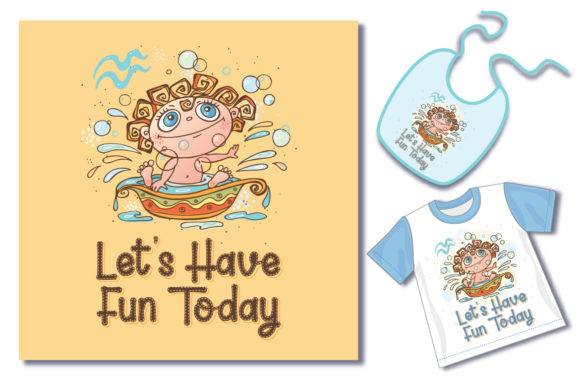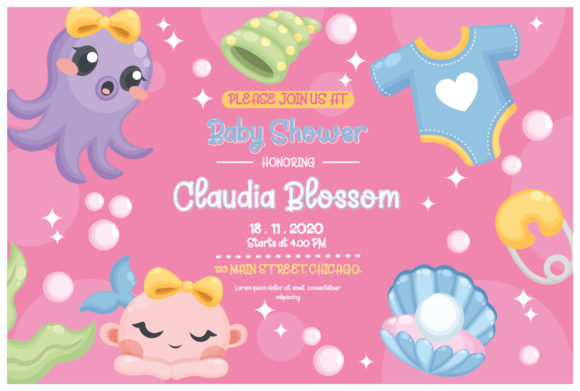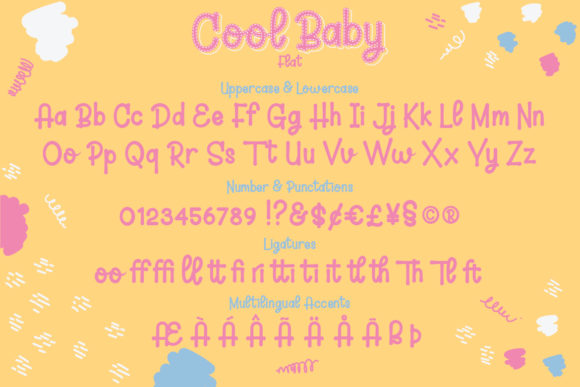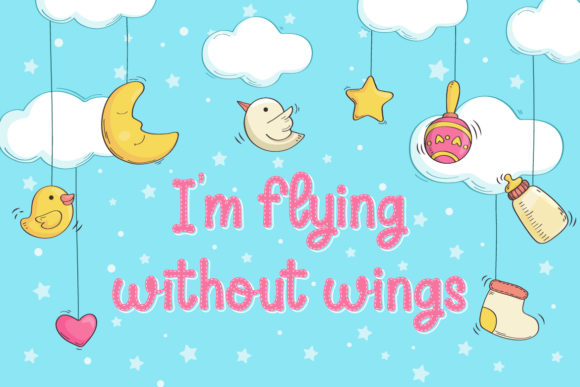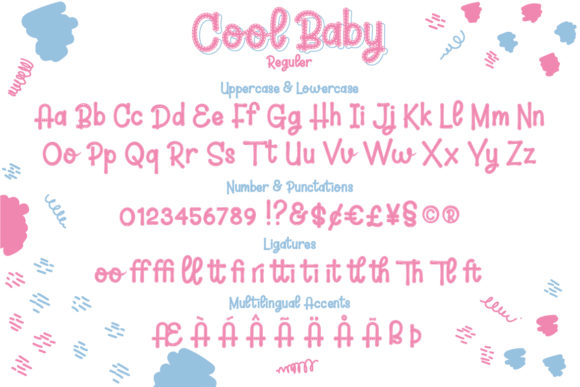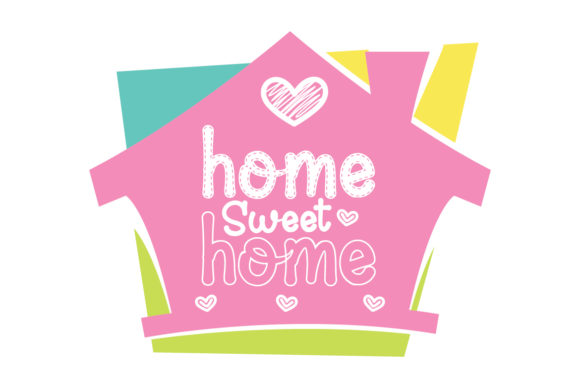
Introducing Cool Baby Font: The Ultimate Friendly Script for Creative Projects
Are you on the hunt for a font that exudes warmth, friendliness, and a dash of playfulness? Look no further than Cool Baby Font! This adorable, casual handwritten script is designed to make your creative projects shine with its incredibly approachable feel. Perfect for designers, crafters, and DIY enthusiasts, Cool Baby Font brings a touch of whimsy and charm to any design.
The Characteristics of Cool Baby Font
Cool Baby Font stands out with its gorgeous swashes and ligatures, making it an incredibly versatile script for a wide range of applications. Whether you’re crafting a stylish Instagram post, designing a logo, or working on a calligraphy project, this font adapts seamlessly to bring your creative vision to life.
Cute and Casual Handwritten Feel
The core of Cool Baby Font’s appeal lies in its cute and casual handwritten feel. Unlike more formal scripts, Cool Baby offers a relaxed, approachable vibe that’s perfect for brands and projects looking to connect with their audience on a more personal level. Its friendly demeanor makes it an excellent choice for children’s brands, educational materials, and any project where a personal touch is desired.
Gorgeous Swashes and Ligatures
One of the standout features of Cool Baby Font is its beautiful swashes and ligatures. These elegant flourishes add a level of sophistication and artistry to your designs, elevating them from simple text to true pieces of art. The swashes can be used to add a decorative touch to headings, titles, and even short paragraphs, giving your text a unique and stylish look.
Versatility of Cool Baby Font
The versatility of Cool Baby Font is one of its most compelling advantages. This script is incredibly adaptable, making it suitable for a wide array of creative projects. Here are just a few ways you can use Cool Baby Font:
- Social Media Graphics: Create eye-catching Instagram posts, Facebook banners, and Twitter headers that stand out with Cool Baby Font’s unique charm.
- DIY Projects: Add a personal touch to your handmade crafts, such as journals, cards, and scrapbooking, with beautiful calligraphy inspired by Cool Baby.
- Branding and Logos: Give your brand a friendly and approachable image with a custom logo or wordmark designed using Cool Baby Font.
- Educational Materials: Make learning more engaging with educational resources that utilize Cool Baby Font’s playful and child-friendly aesthetic.
Why Choose Cool Baby Font?
In a world where fonts are plentiful, Cool Baby Font distinguishes itself with its unique blend of friendliness, versatility, and artistic flair. Here are a few reasons why designers and crafters are falling in love with Cool Baby:
- Unique Aesthetic: Cool Baby offers a distinctive look that’s hard to find in other fonts, making your projects instantly recognizable.
- Ease of Use: Despite its sophisticated appearance, Cool Baby Font is easy to use, even for those new to design or calligraphy.
- Support for Creative Projects: Whether you’re a professional designer or a DIY enthusiast, Cool Baby Font is a valuable tool for bringing your creative ideas to life.
Cool Baby Font is more than just a script – it’s a creative partner that brings a friendly, artistic touch to your projects. With its gorgeous swashes, ligatures, and incredibly friendly feel, Cool Baby is the perfect choice for designers and crafters looking to add a personal and playful element to their work. Whether you’re crafting for fun or professionally, Cool Baby Font is sure to inspire and elevate your creative endeavors.